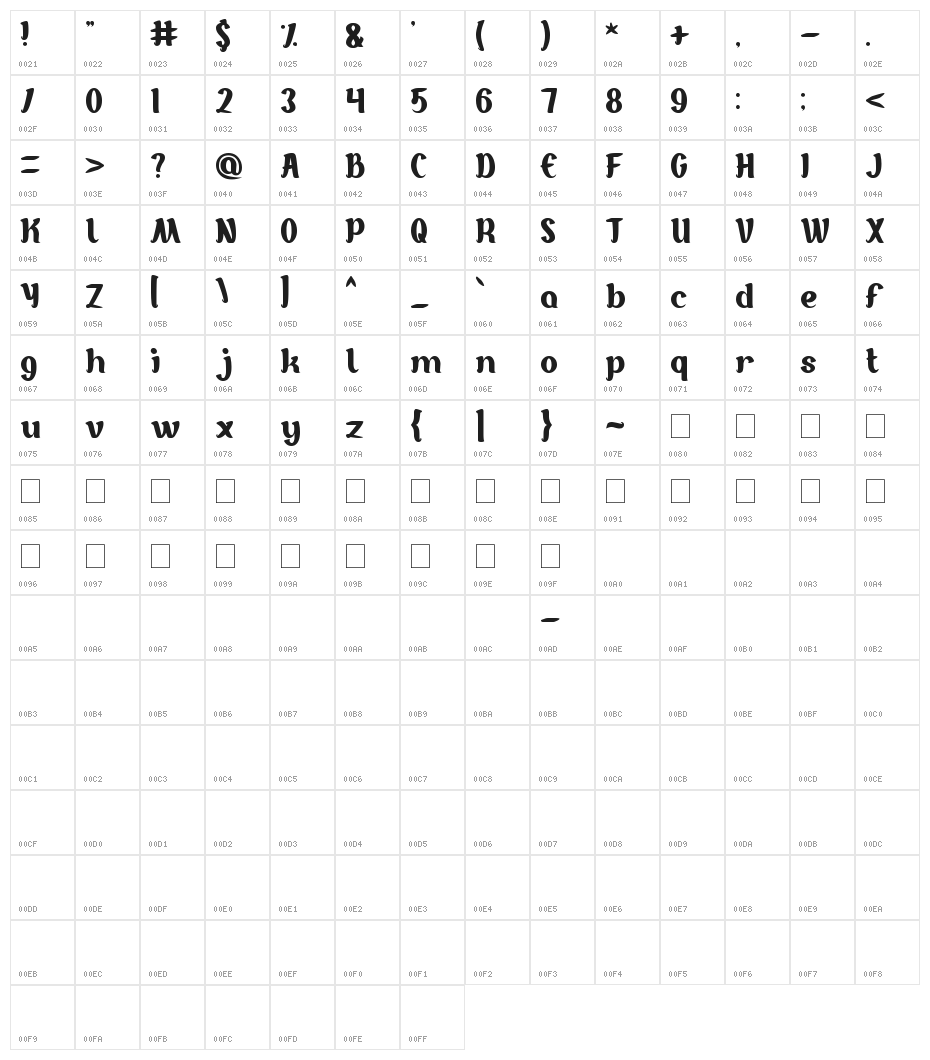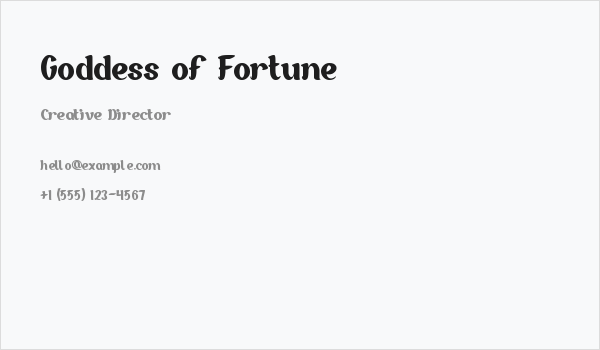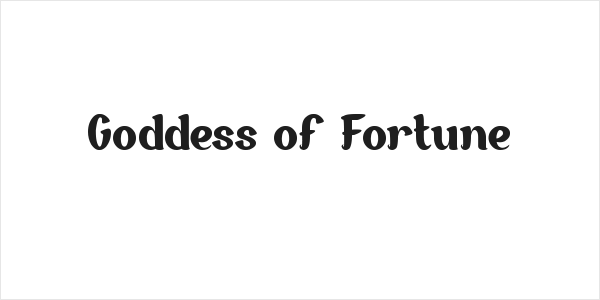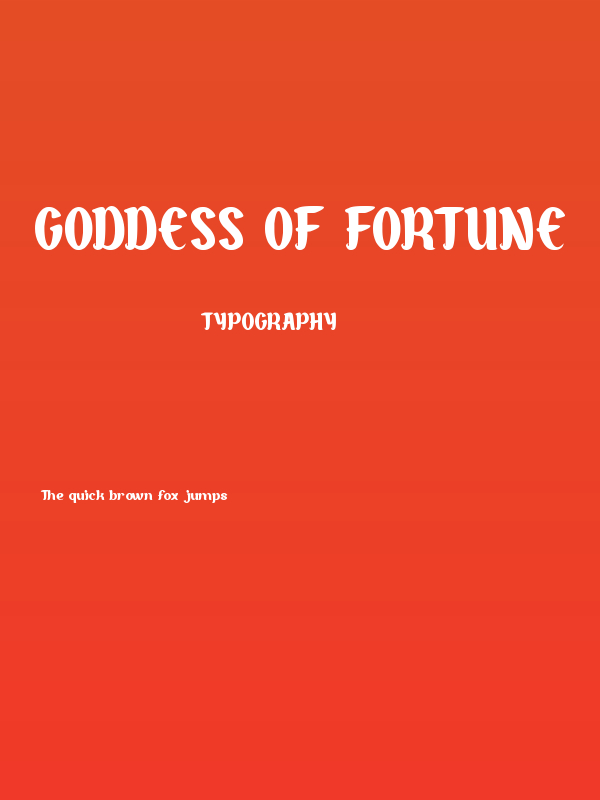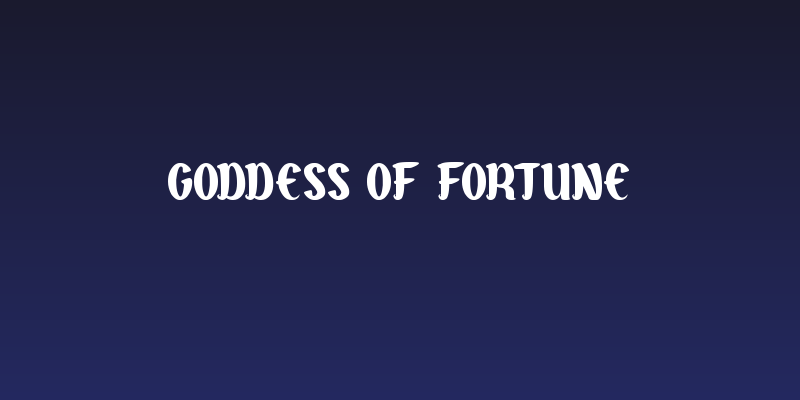
Goddess of Fortune Font
Goddess of Fortune Description
This font features a bold and playful style with a strong presence. The characters are rounded and have a whimsical flair, making them stand out with a unique personality. The uppercase letters are slightly larger and more pronounced, while the lowercase letters maintain a consistent flow. Numbers and special characters are designed to match the overall playful aesthetic, ensuring a cohesive look across all text elements. The strokes are thick and consistent, providing a sense of stability and boldness. This font is ideal for projects that require a fun and engaging visual impact.
| Proposed Projects | Ideal for children's books, playful branding, posters, and creative invitations. |